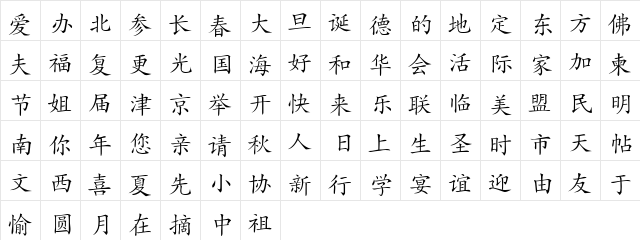
CSL-Hanzi Kaishu Regular
Design Context for CSL-Hanzi Kaishu Typeface
CSL-Hanzi Kaishu offers clean, dependable letterforms without strong stylistic allegiance, making it a practical choice for designers who need flexibility.